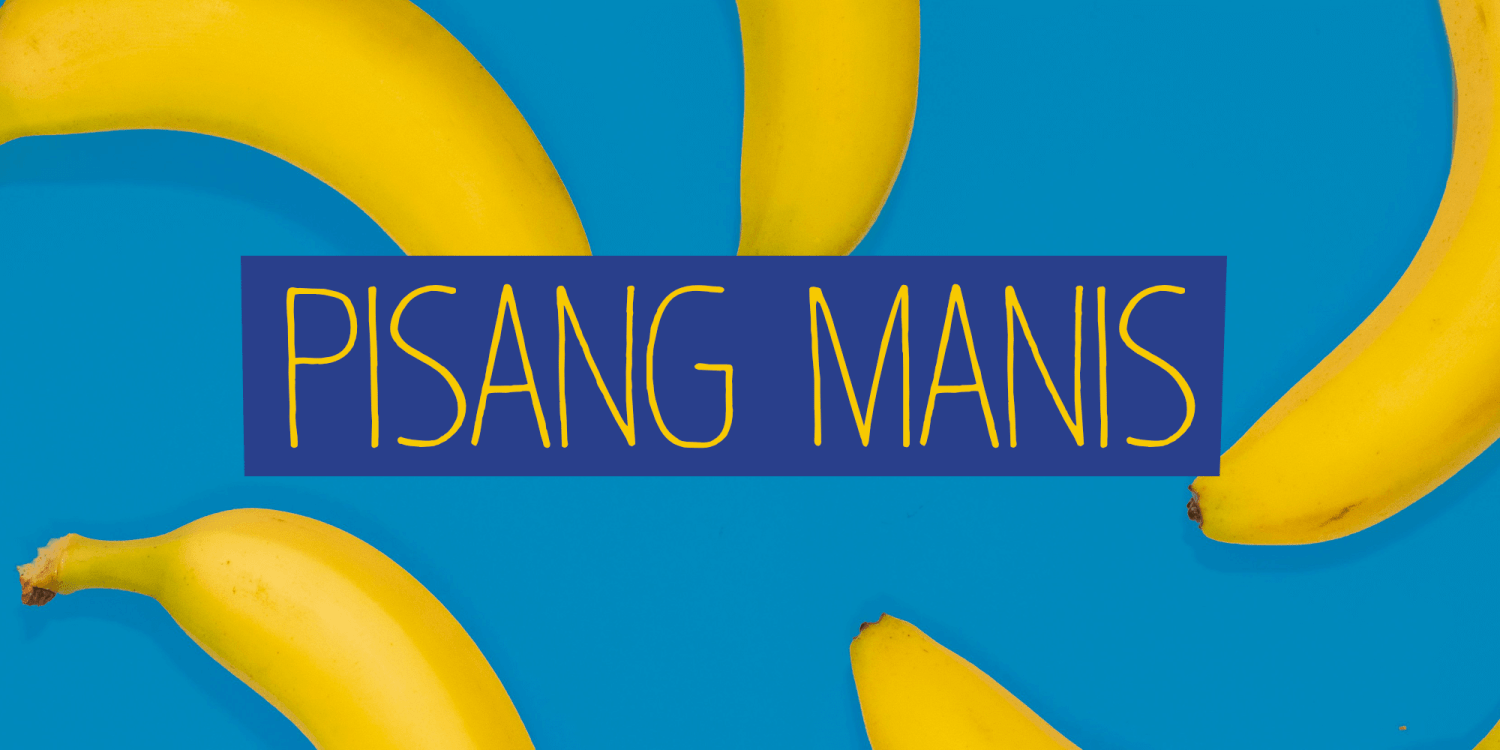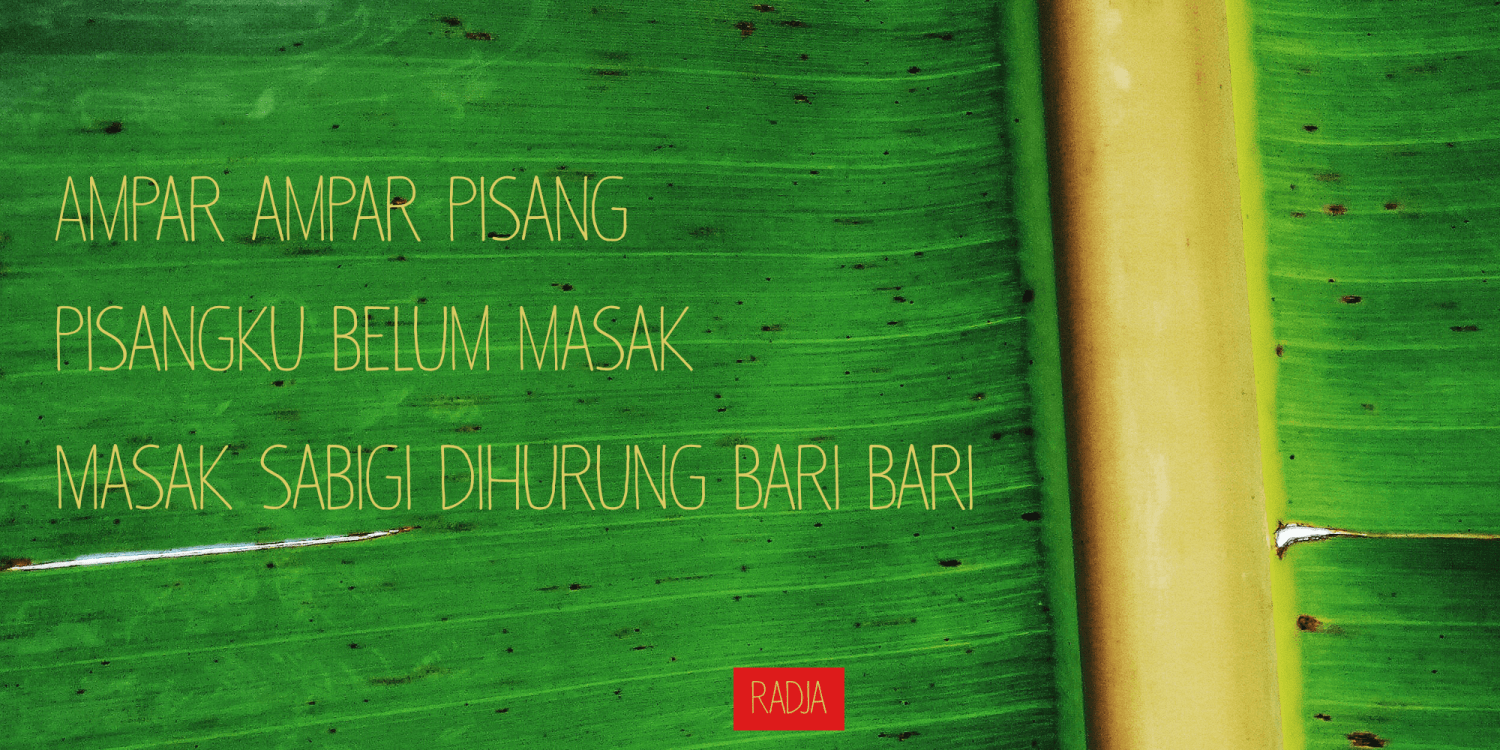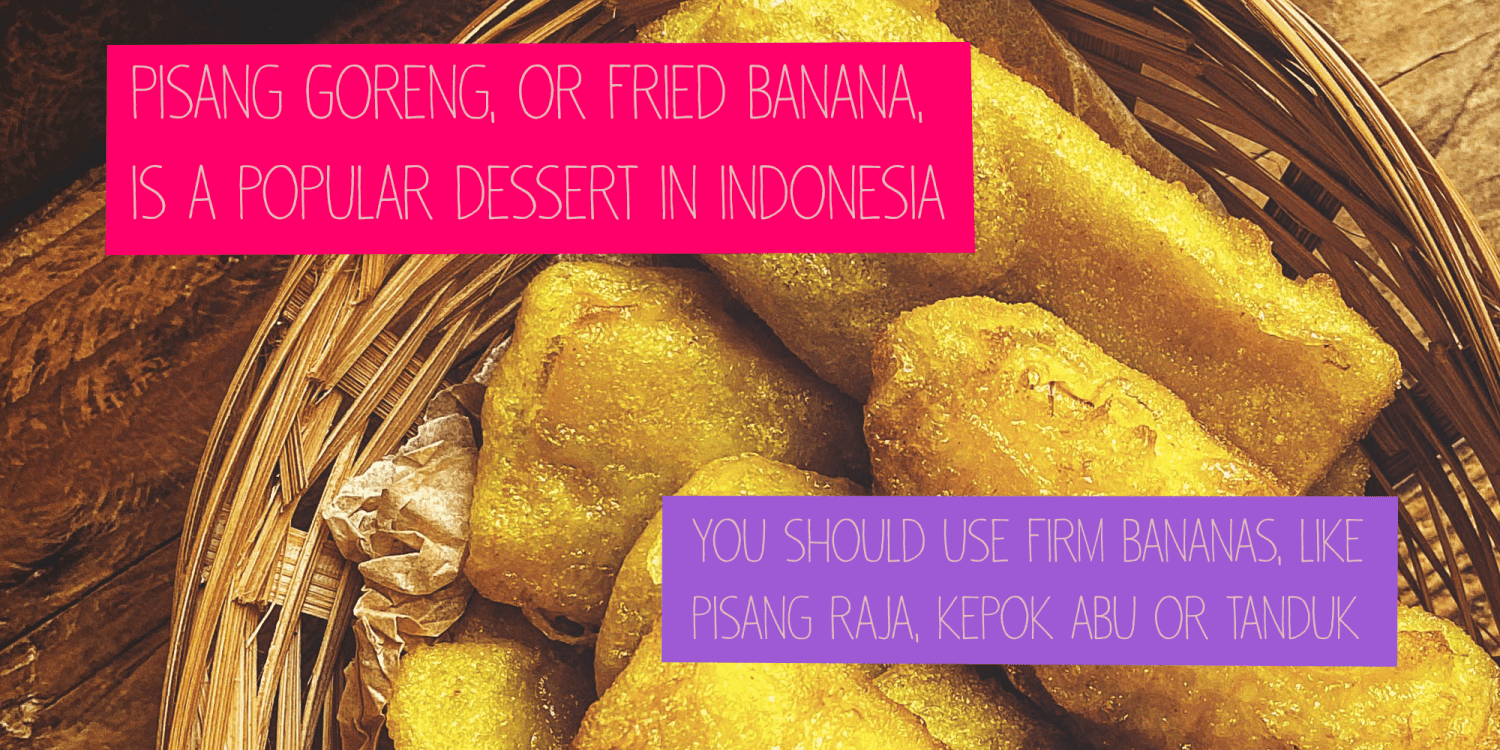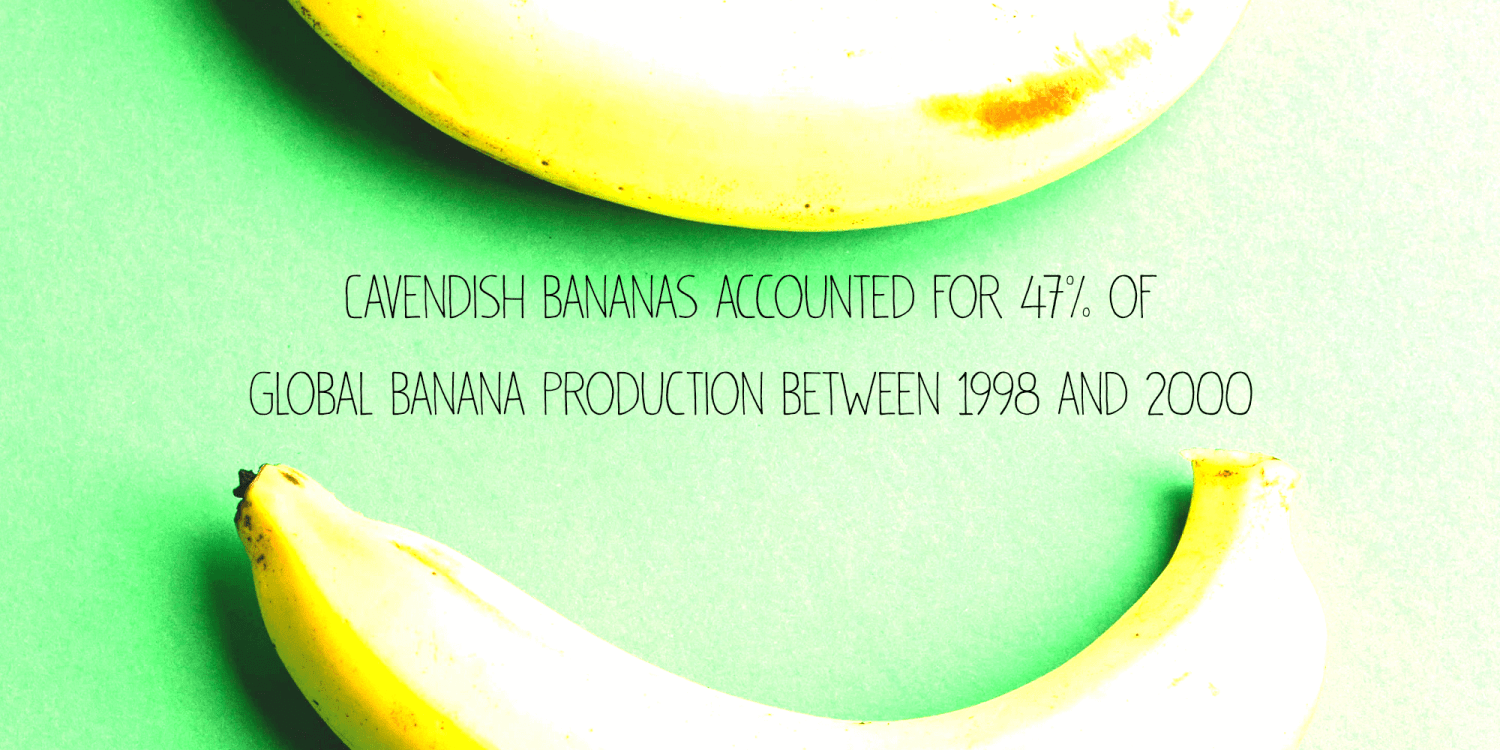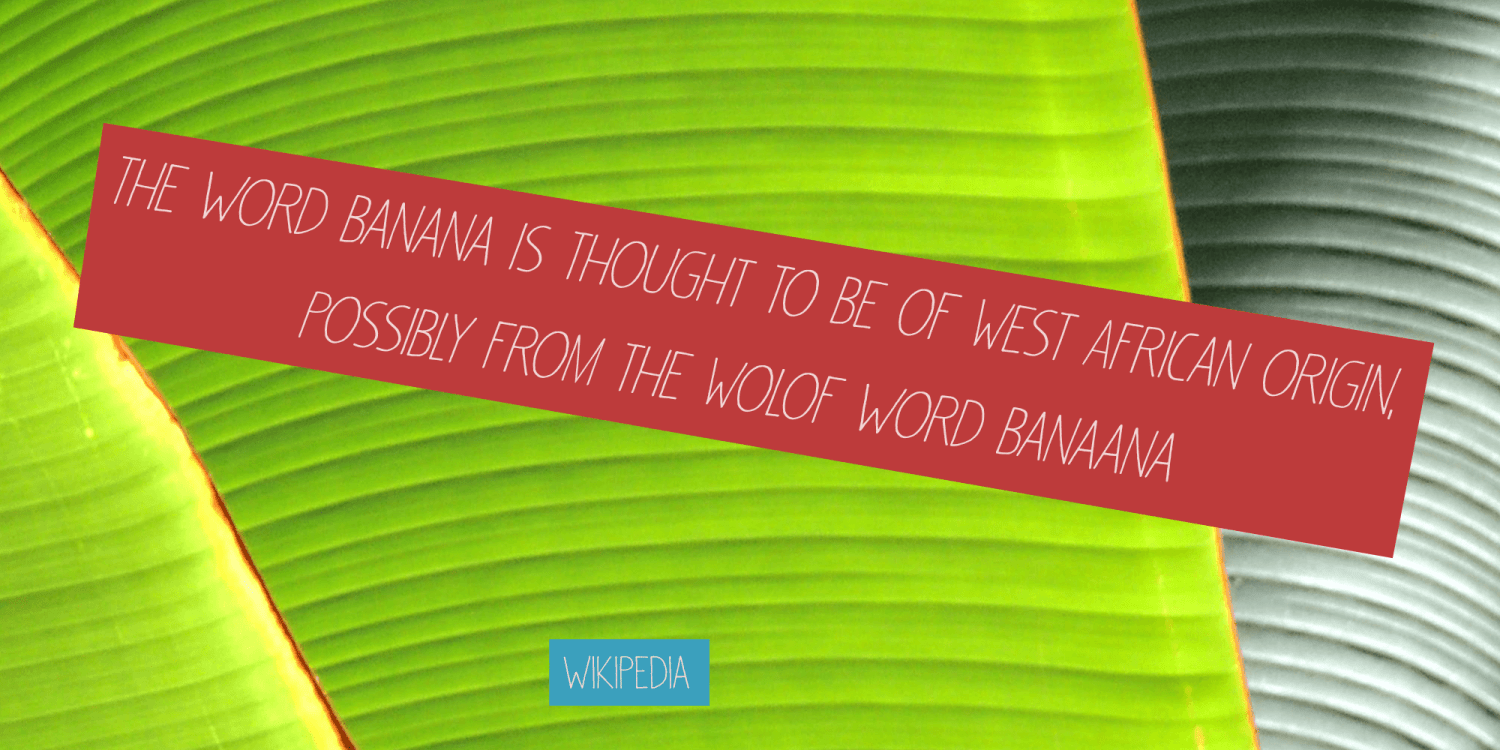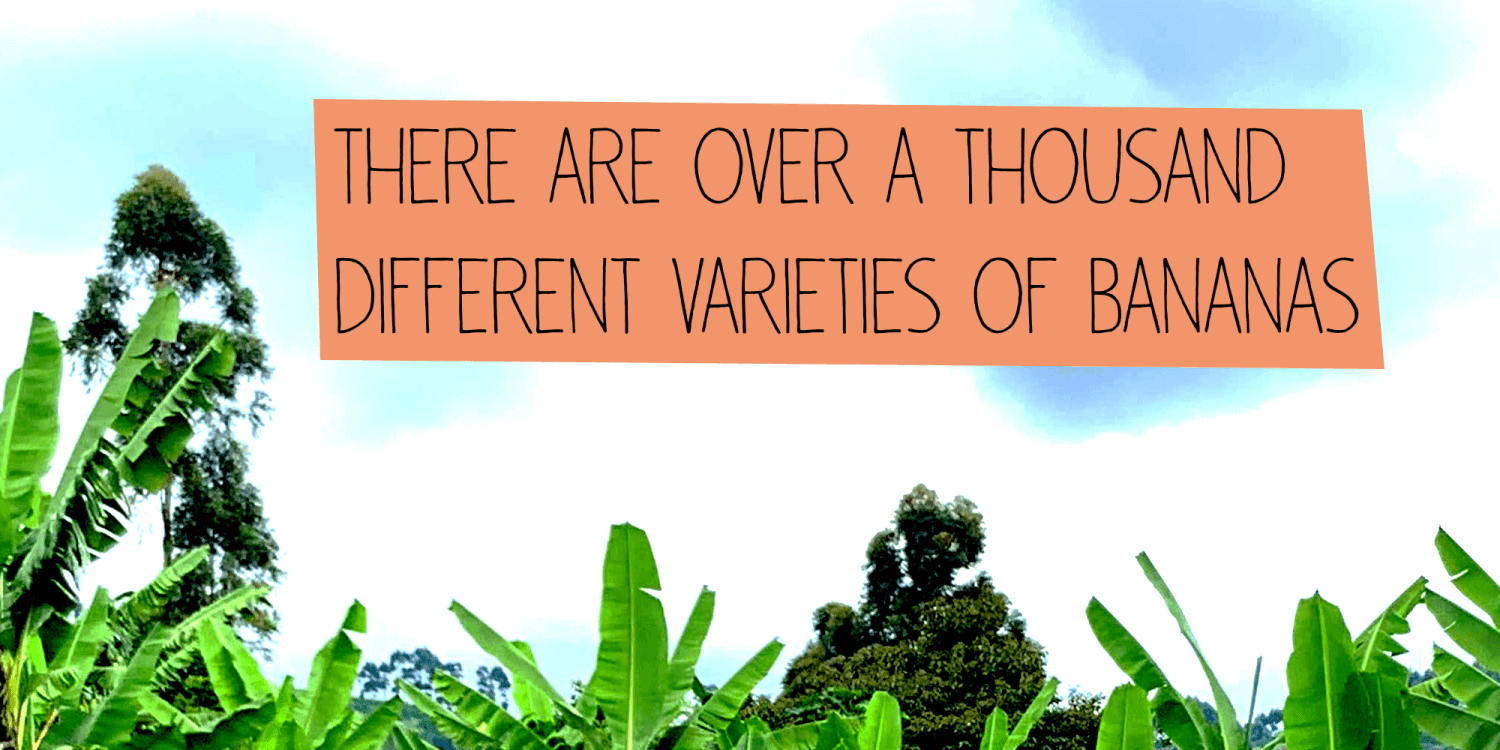
Pisang Manis
Pisang Manis means ‘sweet banana’ in Bahasa Indonesia. I don’t think this particular combination is used in everyday life, but it sounds nice. Pisang Manis is based on an older font of mine, called Pisang, which I created in 2013. It looks similar, but it is a different font altogether.
Pisang Manis is a ‘Tall & Thin’ display font, ideally used for product packaging, websites and book covers.